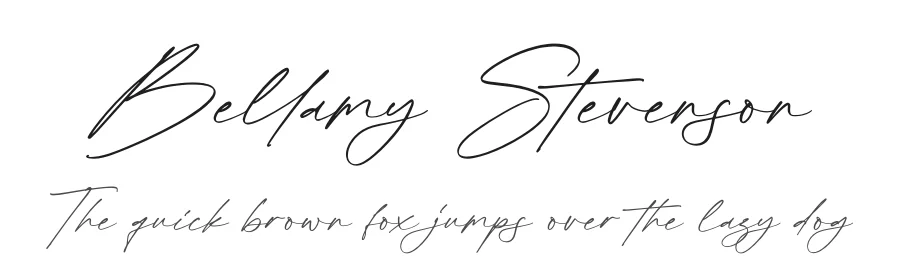
About Boelan Sabit Script Font
Boelan Sabit Script supports 168 languages.
Boelan Sabit Script Font is a script font that shines as a display or heading face. Pair it with a clean sans-serif or serif font for body text β the contrast creates a clear hierarchy while the two styles stay balanced and easy to read.